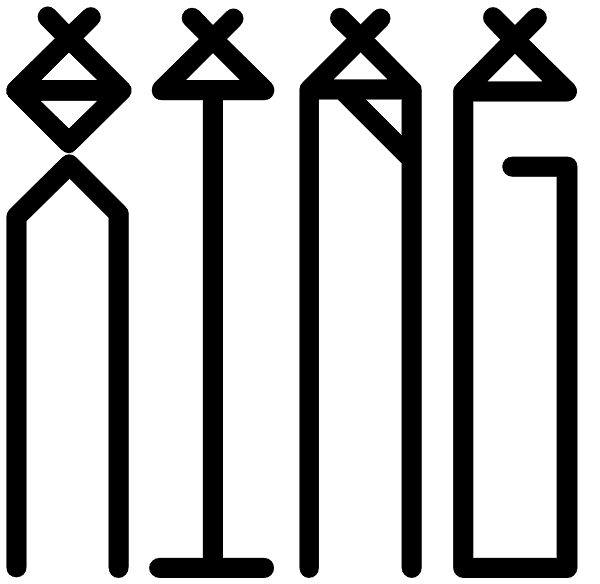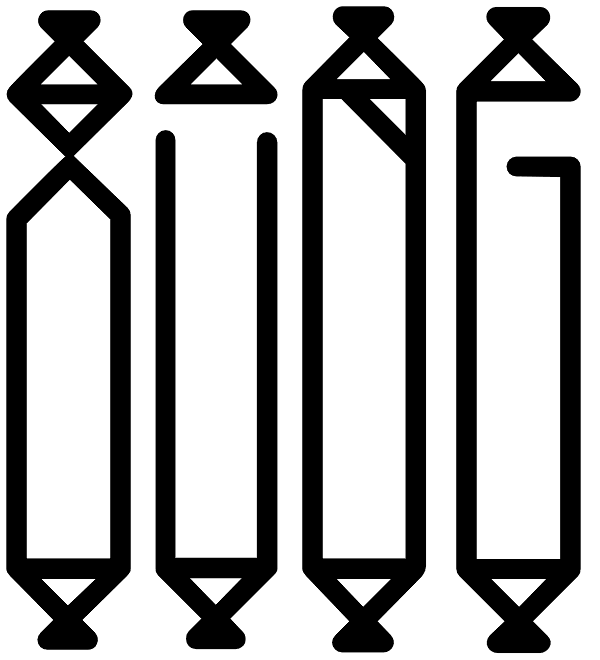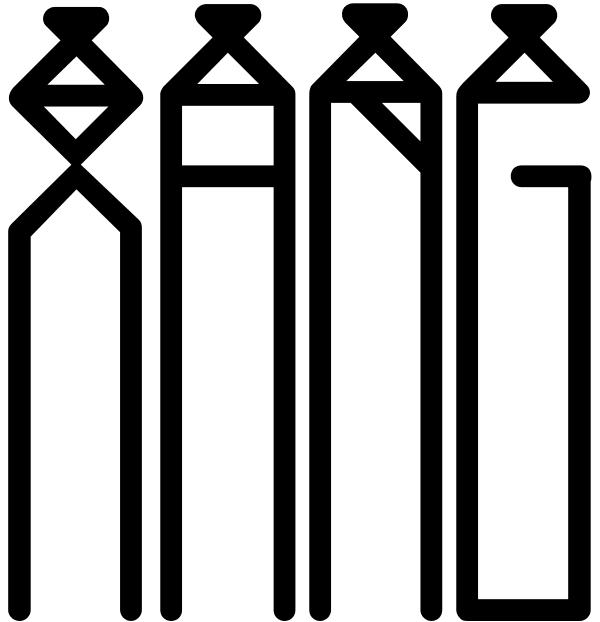
XingXungXang
XingXangXung is a display font designed by Diogo Pisoeiro. Although it only has a limited number of characters, this display face with a unique style will work well for graphic design and display work.